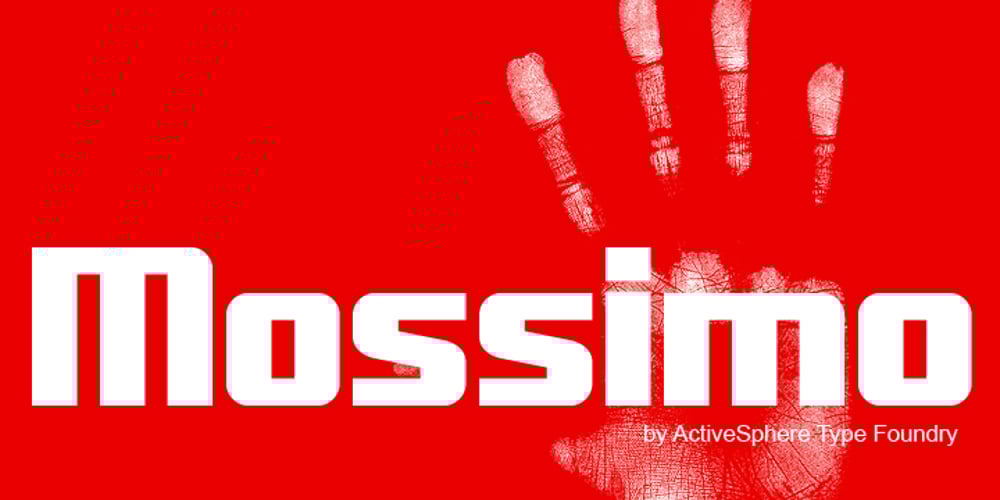
Mossimo Font Family was designed by Ronnie Dela Cruz and published by ActiveSphere. Mossimo contains 8 styles and family package options. Mossimo is a fat slab typeface, and works best in text and display applications, such as headline, posters, signage, magazine, product branding, corporate branding, logos and titles. Several alternate characters are included in this typeface.